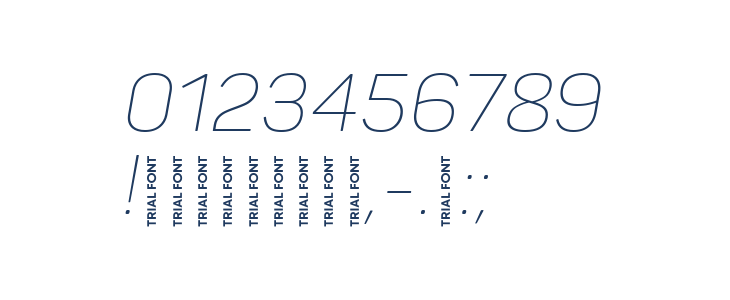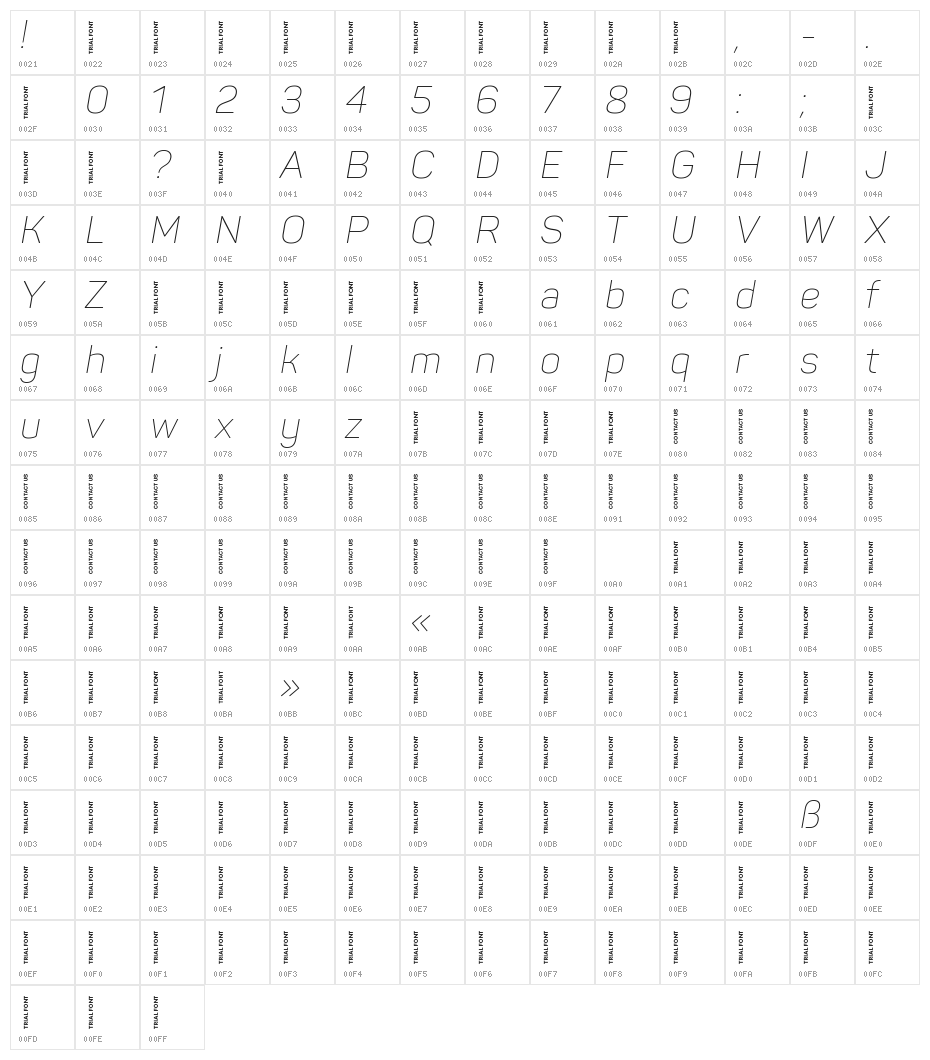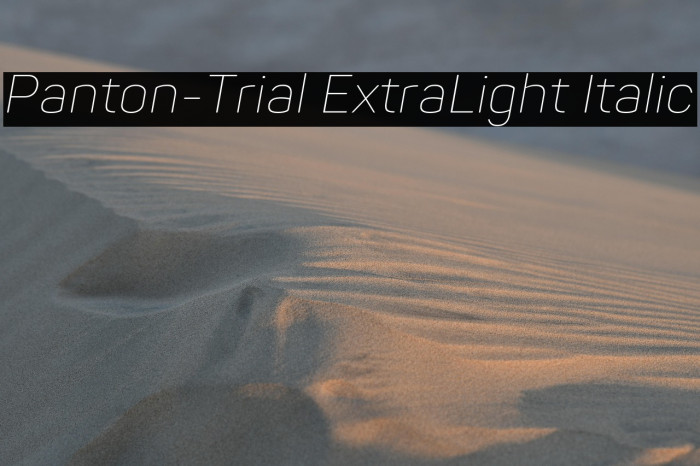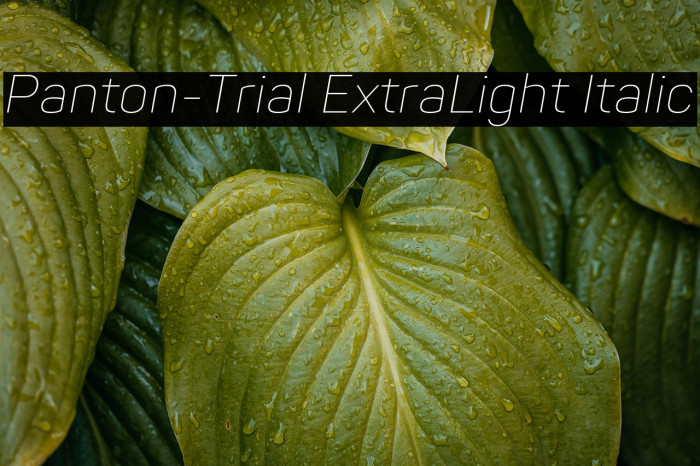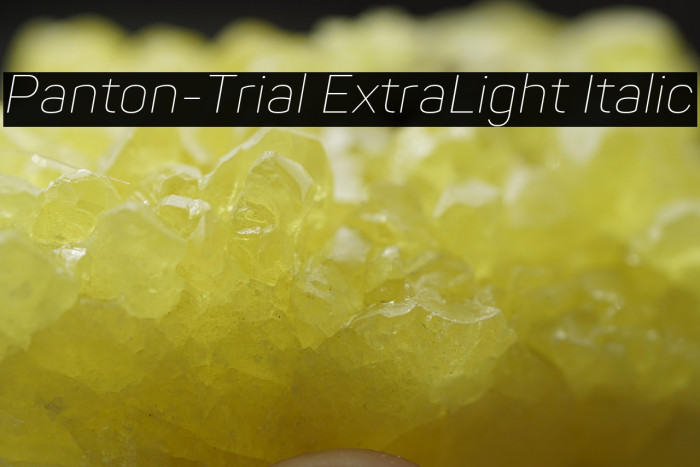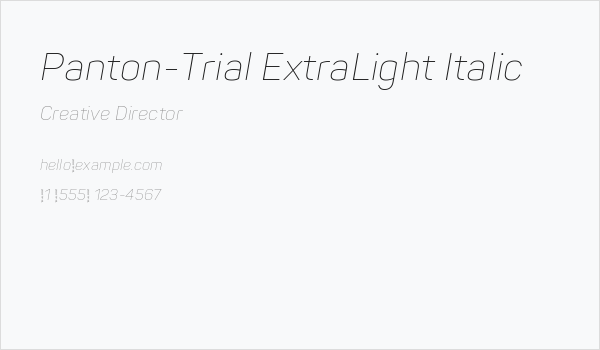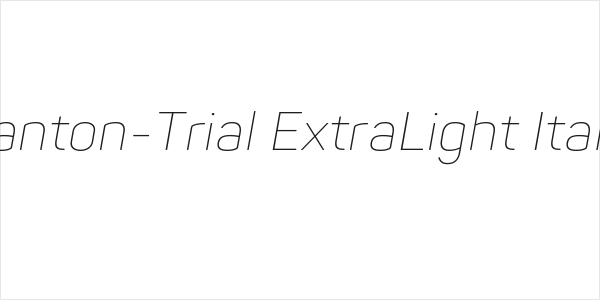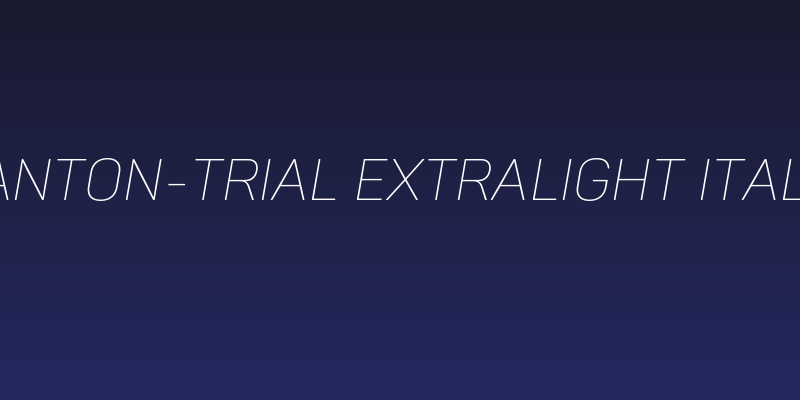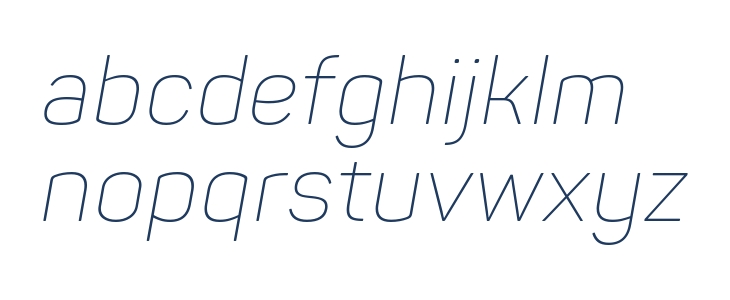
Panton-Trial ExtraLight Italic Font
Panton-Trial ExtraLight Italic Description
This font features a sleek and modern design with a clean, minimalist aesthetic. The characters are crafted with an extra-light weight, giving them a delicate and airy appearance. The italic style adds a subtle slant, enhancing the font's elegance and fluidity. The sans-serif design ensures a contemporary look, making it versatile for various applications. The strokes are consistent in thickness, providing a uniform and harmonious appearance. The character spacing is normal, allowing for easy readability while maintaining a sophisticated look.
| Proposed Projects | Ideal for modern branding, elegant invitations, minimalist websites, and stylish editorial layouts. |